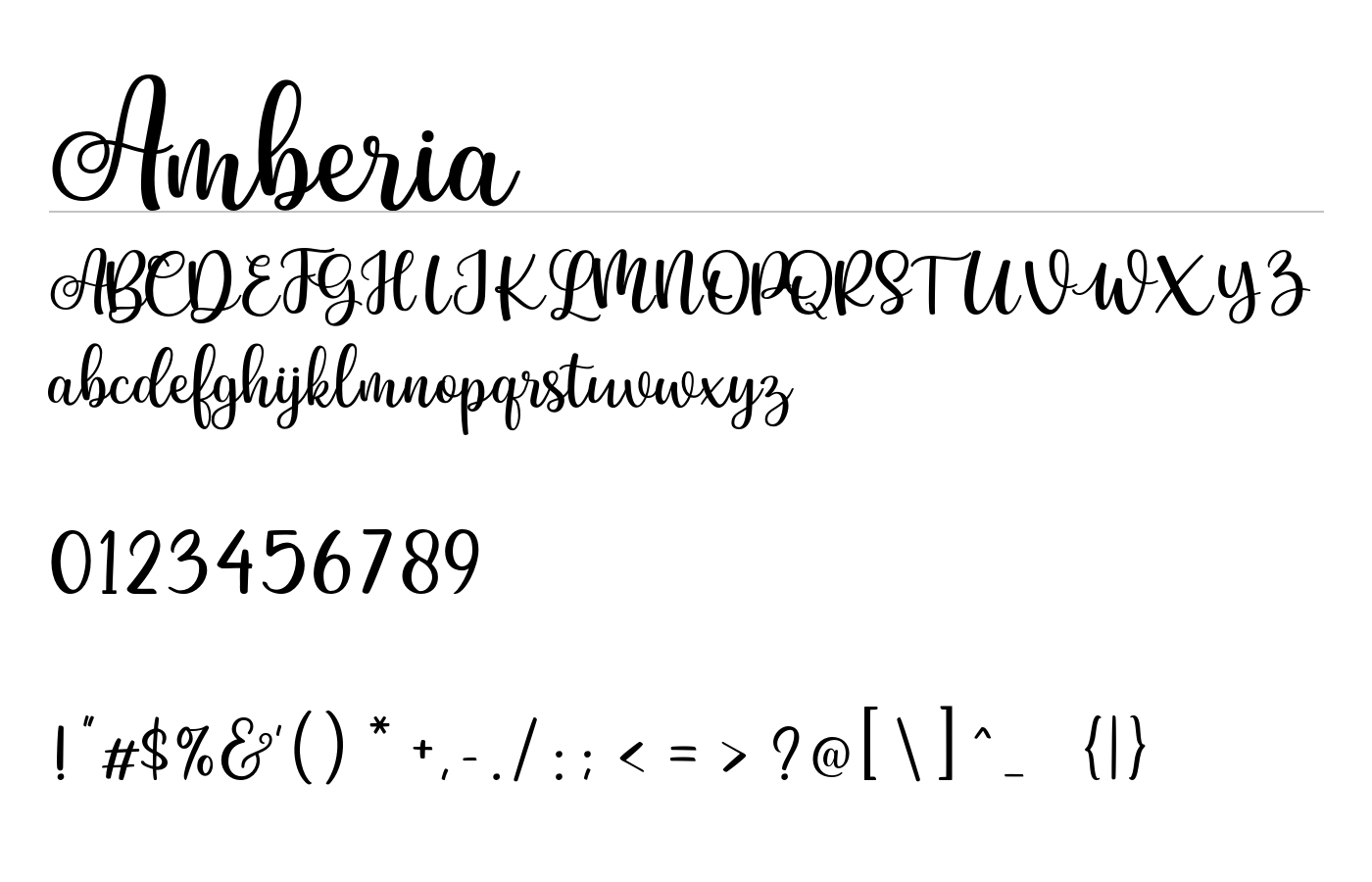
Amberia is a graceful script font with fluid, playful strokes that combine elegance and a friendly charm. Its flowing letterforms and moderate contrast make it ideal for creative branding, invitations, and headlines where a personal, approachable touch is desired. This font shines in designs that want to balance sophistication with warmth.
Amberia Font
About Amberia Font